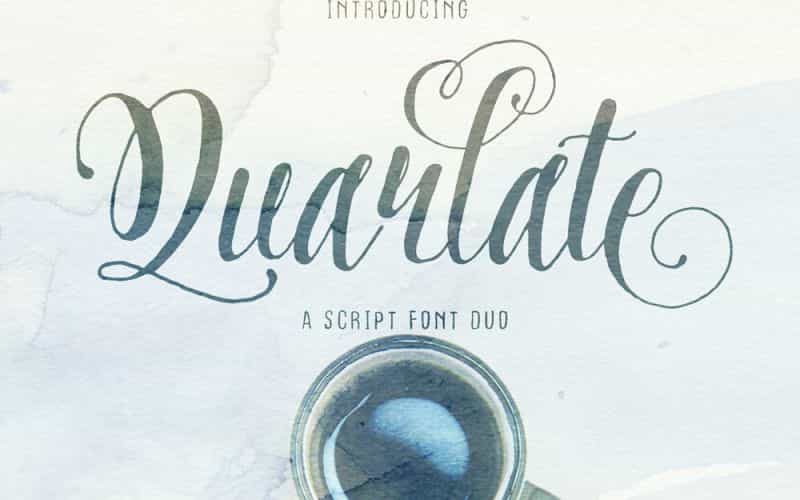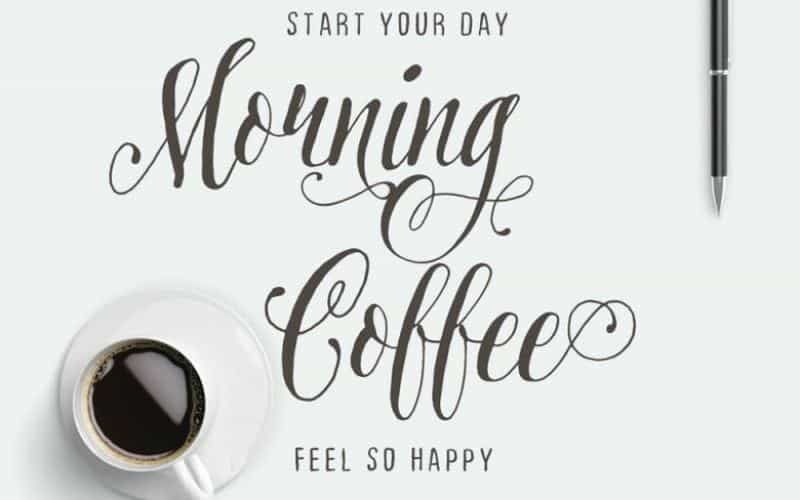
Discover Quarlate Sans & Script Font, part of the Sans Serif Calligraphy Handwritten collection—a versatile and unique font perfect for adding a personal touch to your projects. Download it for free and enjoy crafting designs with style, from invitations to social media posts. This font is available exclusively for personal use, giving you the freedom to create without limits. Unlock your creativity with Quarlate Sans & Script Font today!
Quarlate is for you . Quarlate is a beautiful font duo that is perfect for informal, messy design. A charming combination of a stylish, bouncy script and a playful handwritten Sans. Use best together, or even on their own. Either way – you get both fonts. This universal font will extend your font set. It is perfect for cute and playful designs, or dress it up and create stylish and chic brands.